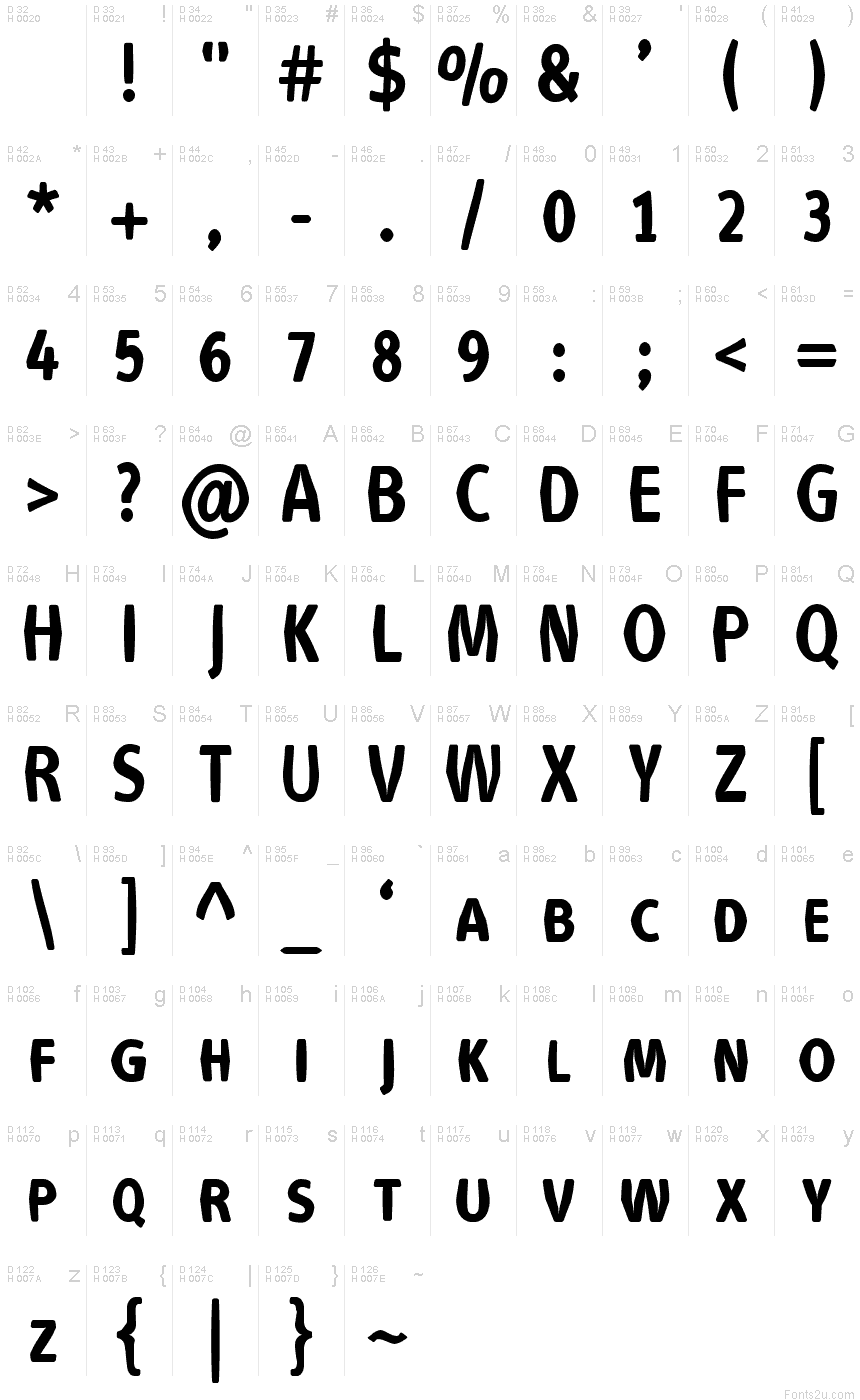
VTC Anglika Regular
VTC Anglika by V.T.C. Vigilante Type Corporation is a free medieval display font with tall, hand-hewn letters and a rough, carved rhythm. The caps feel blunt and ceremonial at once, with swelling verticals, pinched joins, and uneven silhouettes that make the font read like signage cut with a knife rather than drawn with a ruler.
That makes this free font a natural fit for fantasy book covers, folk music posters, tavern branding, game title cards, and chapter openers where a little old-world drama helps. It works best in short lines, initials, and monograms, because the narrow, irregular letters carry plenty of mood before you even add imagery.